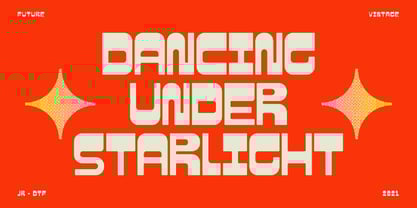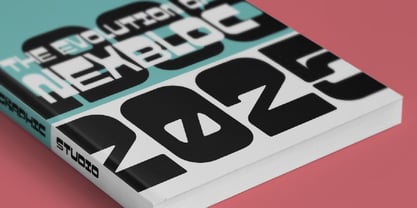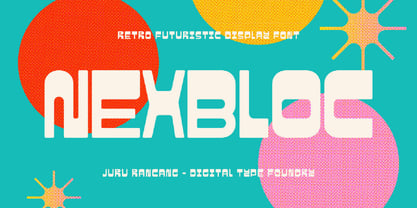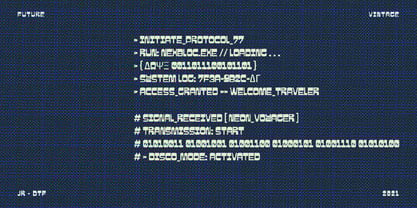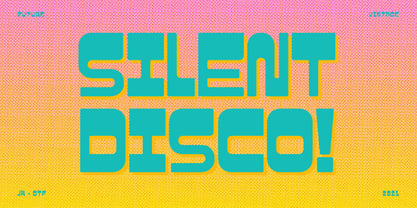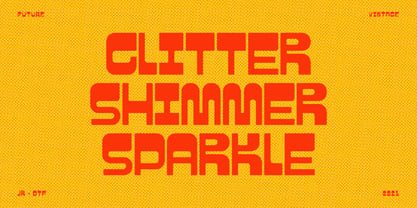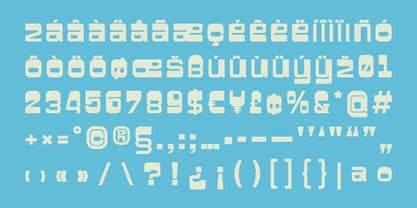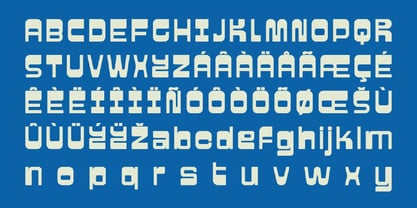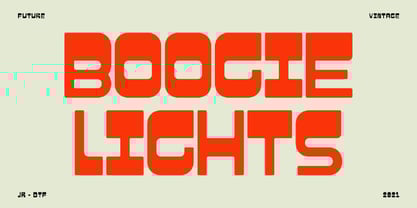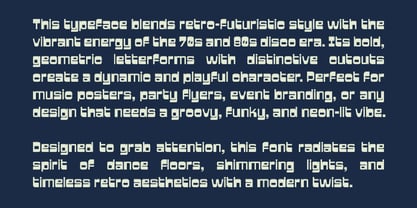
Nexbloc
by Juru Rancang Studio
The Nexbloc Font Family was designed by Ihsan Khairul Lazuardi and published by Juru Rancang Studio. Nexbloc contains 1 styles. More about this family
Nexbloc, this retro-futuristic display font captures the bold spirit of 70s and 80s design, blending geometric letterforms with playful cutouts that radiate energy and movement. Its unique shapes make it stand out on posters, flyers, branding, and digital artworks that call for a striking, vibrant touch.
Perfect for projects that aim to combine nostalgia with modern aesthetics, this font brings a funky, groovy vibe reminiscent of disco floors, neon lights, and vintage futurism. Whether for music events, editorial design, or bold statement graphics, it delivers impact and personality in every letter.
Juru Rancang Studio is the independent type foundry of Indonesian designer Ihsan Khairul Lazuardi, born and based in Bandung. With a strong academic background in visual communication design and years of professional practice, he develops typefaces that merge experimental approaches with cultural heritage. His works frequently reference Sundanese and Sanskrit traditions, reflecting local identity while engaging with contemporary design language.